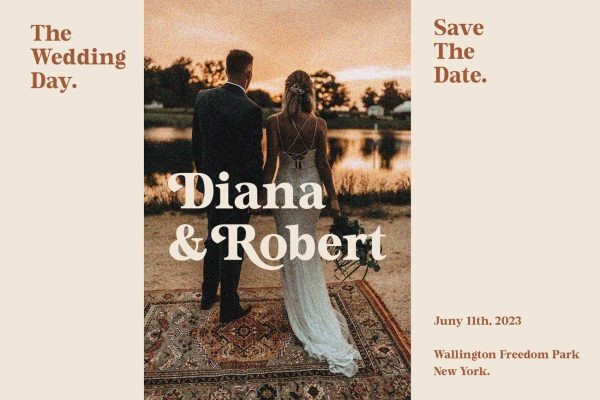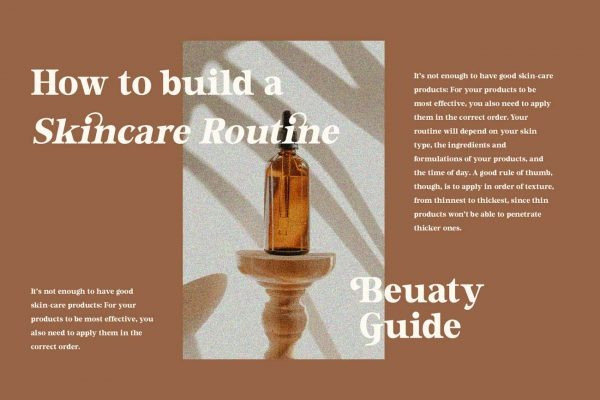
Clorin Font
Clorin Font by rantautype, is a modern serif font with beautiful uppercase and lowercase. The alternate uppercase can make to classic, it’s to good to make variant on your work. I’ve also love combination the reguler and italic make cool and nostalgic. Clorin is the great choice for watermark on wedding organizer, signature or signature logo design, quotes, album cover, business card and many other design project. Let’s make high level you project with Clorin.